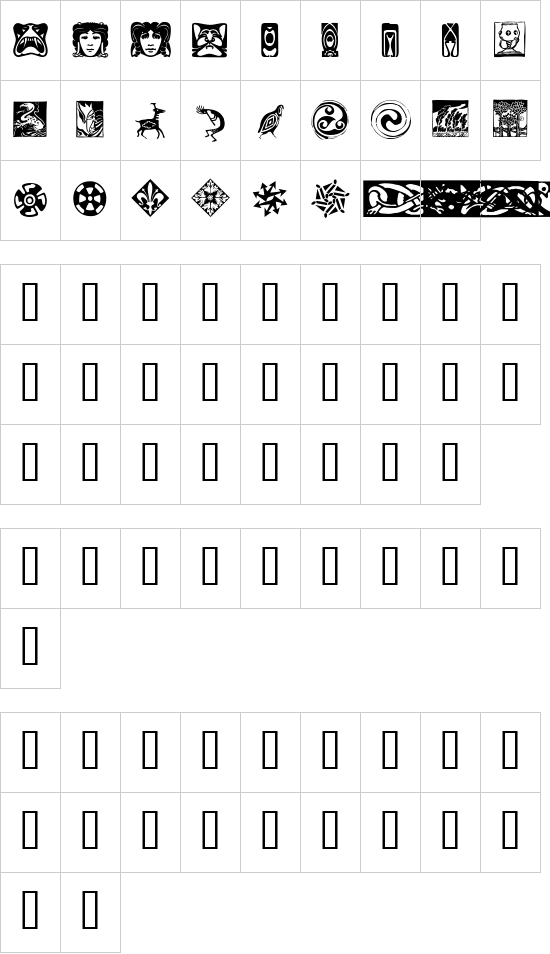
Artfonts Sampler
About Artfonts Sampler
Artfonts Sampler is a varied dingbat font offering an assortment of decorative symbols and graphic elements across its keys. The mix ranges from ornaments to accents, giving you a small toolkit of ready-made shapes gathered in one file.